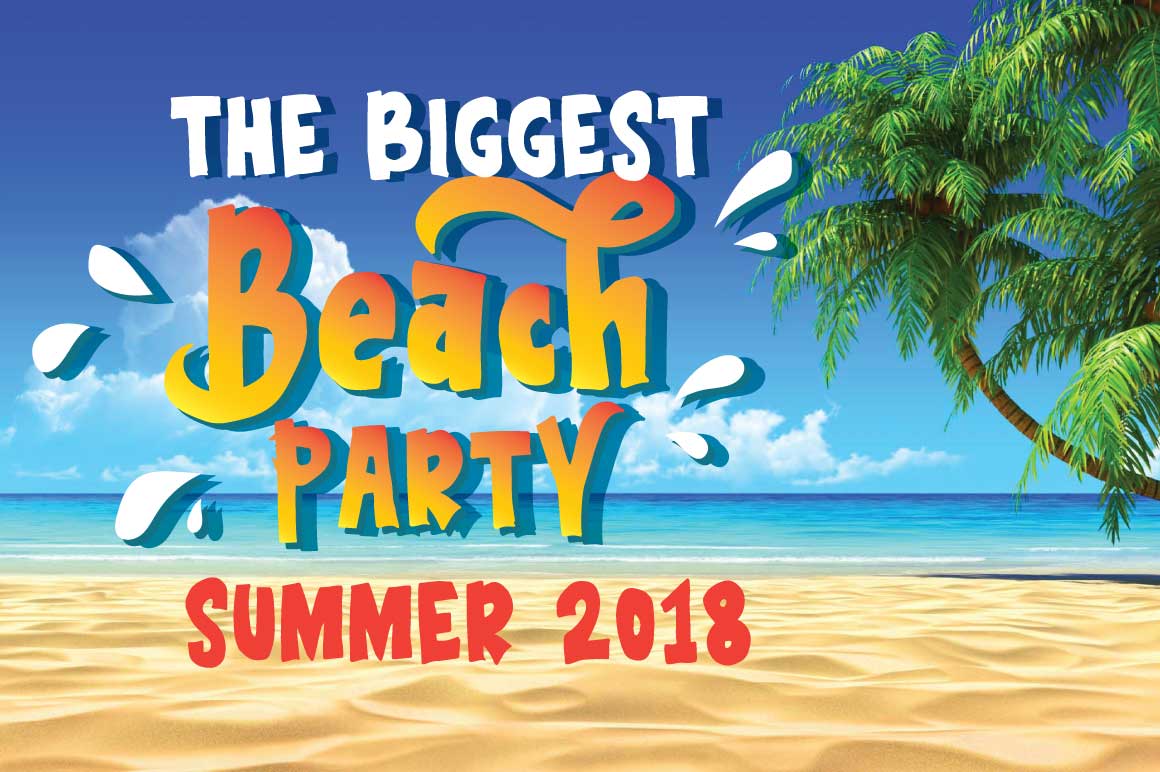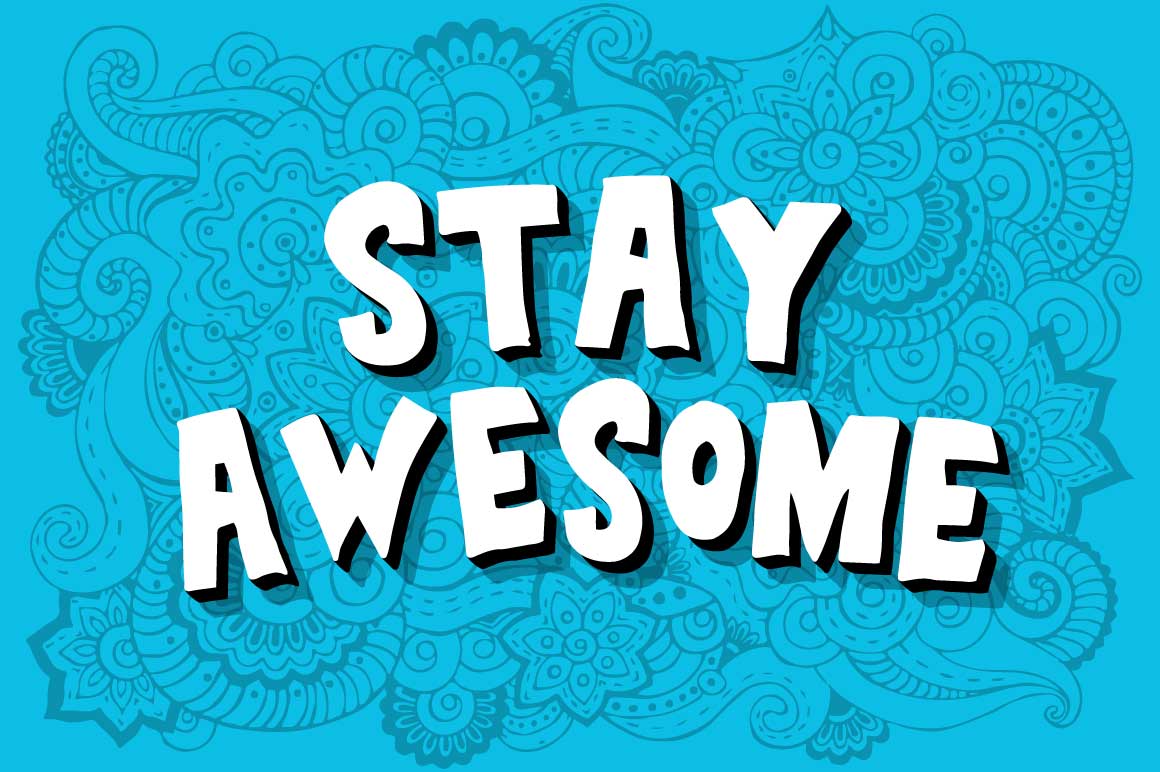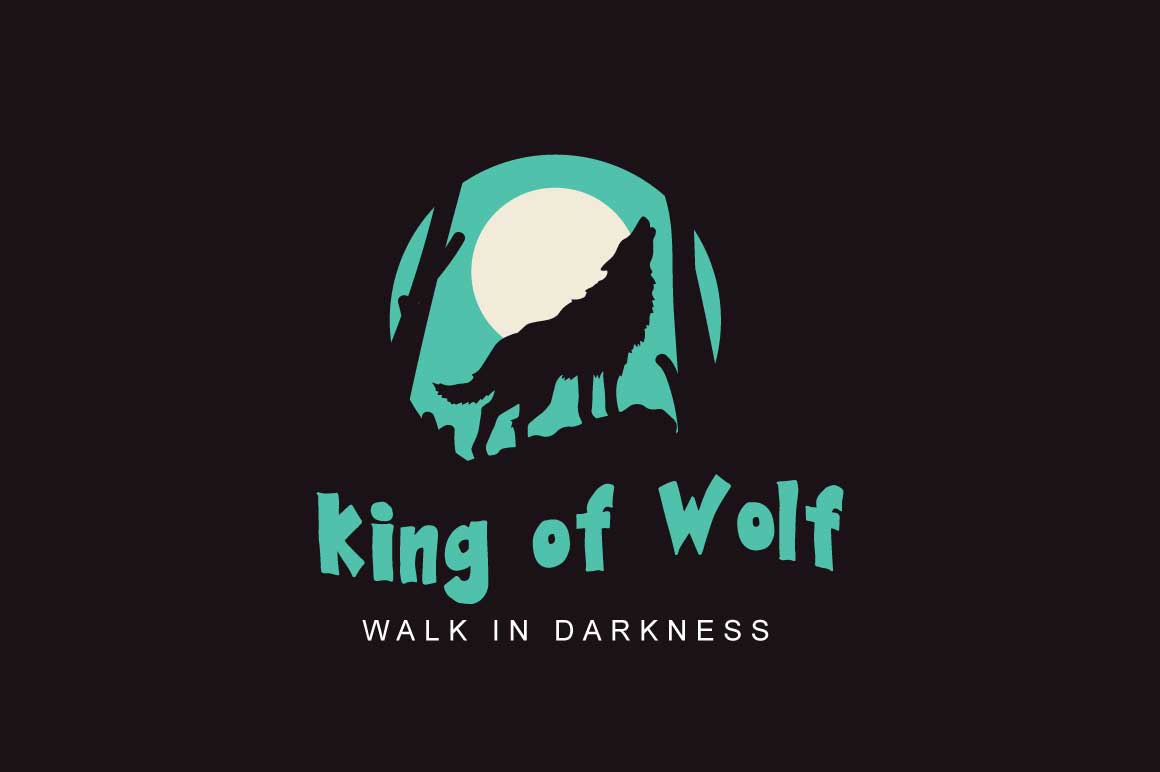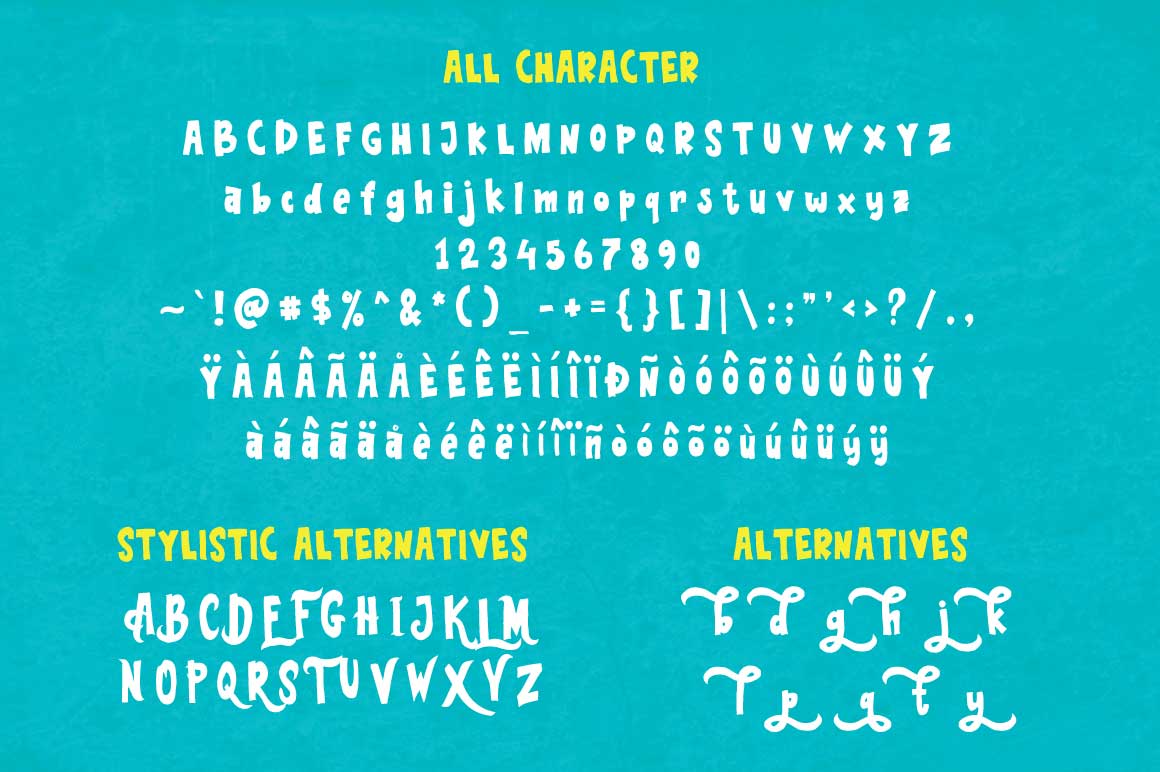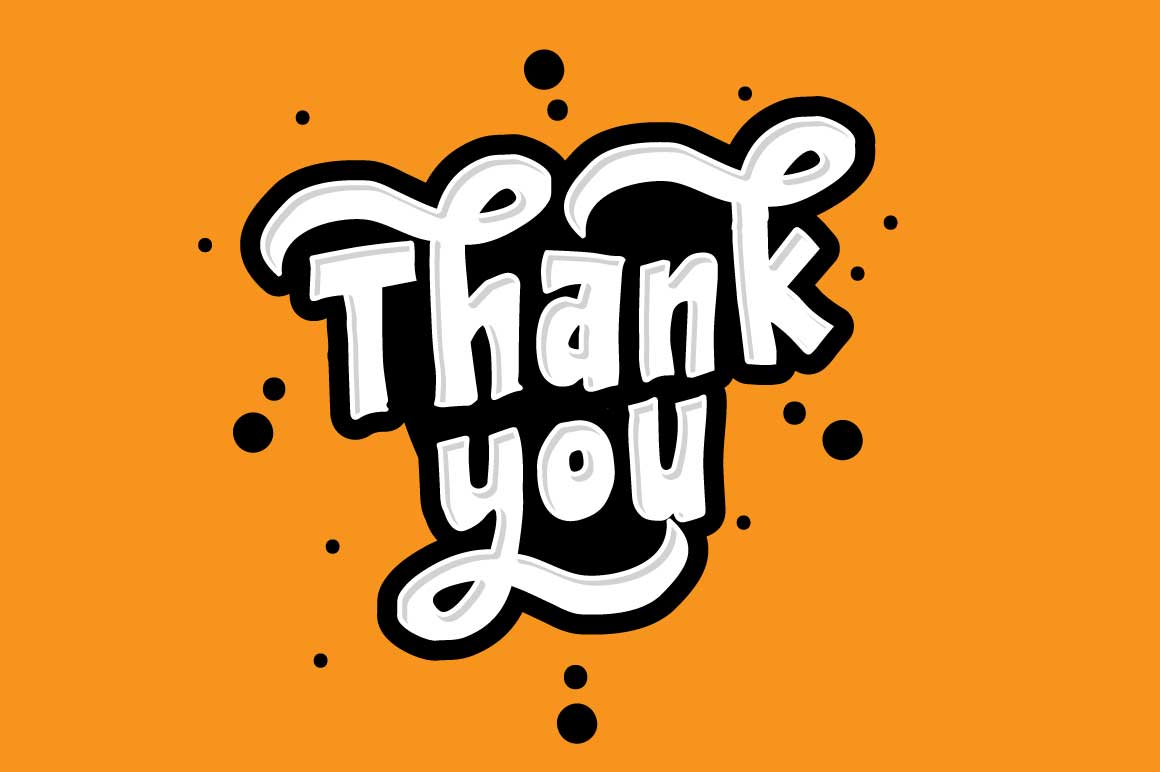
The Blue Sea Font: A Fun and Quirky Display Font for Creative Projects
I’ll never forget the moment I stumbled upon the Blue Sea Font while working on a vintage-inspired craft project. I was searching for a font that would capture the essence of handwritten, manual type design styles, and boy, did I hit the jackpot! The Blue Sea Typeface is a fun display font that’s perfect for informal, creative projects. In this article, I’ll share my experience with this font, its features, and how to make the most of it in various design platforms.
As a designer, I’m always on the lookout for fonts that can add a personal touch to my projects. Here’s my honest review of the Blue Sea Font:
- ✨ Unique and quirky design: The Blue Sea Font has a distinct, hand-drawn feel that’s perfect for creating eye-catching display messages.
- ✅ Special ornamental uppercase characters: The font comes with a range of decorative uppercase characters that can be used to add a touch of elegance to your designs.
- ✅ Easy to read: Despite its quirky design, the Blue Sea Font is surprisingly easy to read, making it perfect for use in titles, headings, and short paragraphs.
Now, let’s talk about a few quirks to keep in mind:
- 🤔 Limited use in formal projects: The Blue Sea Font is best suited for informal, creative projects. It may not be the best choice for formal or professional designs.
- ⚠️ Some characters may not work well in small sizes: Due to its ornate design, some characters may not render well in small font sizes.
The Blue Sea Font was inspired by the works of Alexandra Korczynska, a renowned designer known for her love of vintage and handmade design styles. The font’s quirky design and ornate uppercase characters are a nod to the art of hand-lettering and the beauty of imperfection.
| What is the Blue Sea Font best suited for? | The Blue Sea Font is best suited for informal, creative projects such as craft projects, social media graphics, and blog posts. |
| Is the Blue Sea Font easy to read? | Yes, the Blue Sea Font is surprisingly easy to read, making it perfect for use in titles, headings, and short paragraphs. |